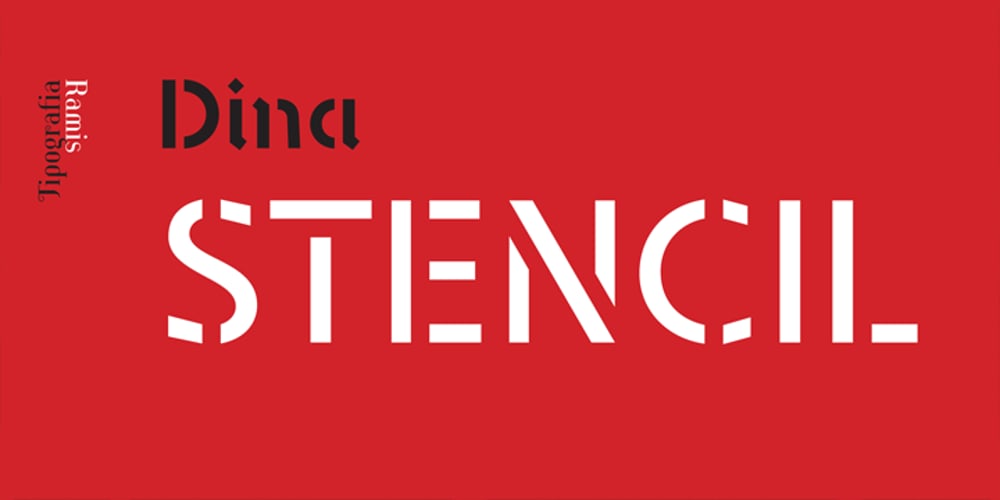
Dina Stencil
Dina Stencil font
Dina Stencil Font Family was designed by Ramiz Guseynov and published by TipografiaRamis. Dina Stencil contains 2 styles and family package options. Dina Stencil is geometric sans serif stencil typeface, an addition to Dina family. Dina Stencil consists of two styles (weights)—regular and bold. The typeface recommended for use in display sizes.